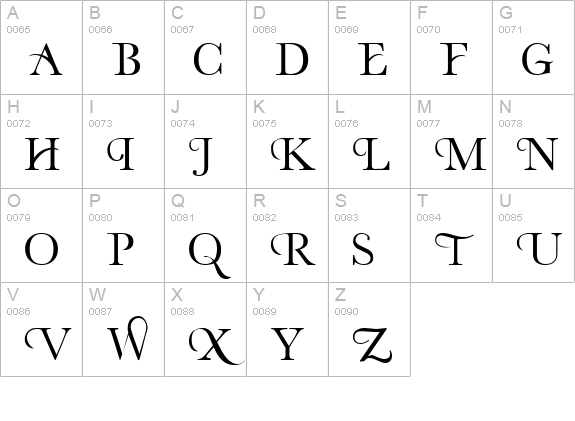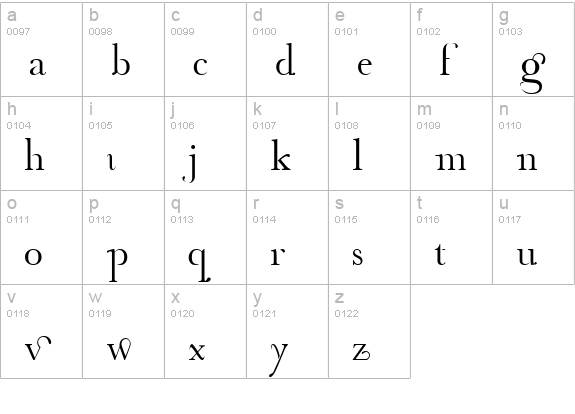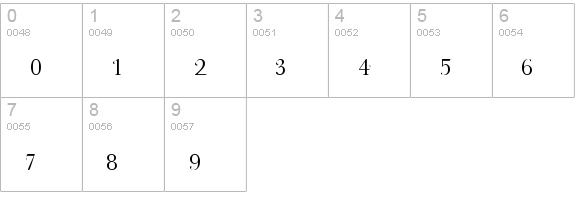
Introducing the exquisite and ornate FINAL font, a stunning decorative typeface that will add a touch of elegance to your design projects. This font features intricate details and unique flourishes that make it perfect for creating eye-catching headlines, invitations, and more. What sets FINAL font apart is its versatility and timeless appeal. Whether you're working on a vintage-inspired design or a modern project, this font will effortlessly elevate your work to the next level. Each letter is carefully crafted with precision and flair, making it a truly standout choice for any creative endeavor. The best part? FINAL font is completely free to download at FontsMarket.com. Yes, you read that right - you can access this beautiful font at no cost, allowing you to bring your design visions to life without breaking the bank. Don't miss out on this opportunity to enhance your projects with the elegance and charm of FINAL font. Download it today and let your creativity shine!